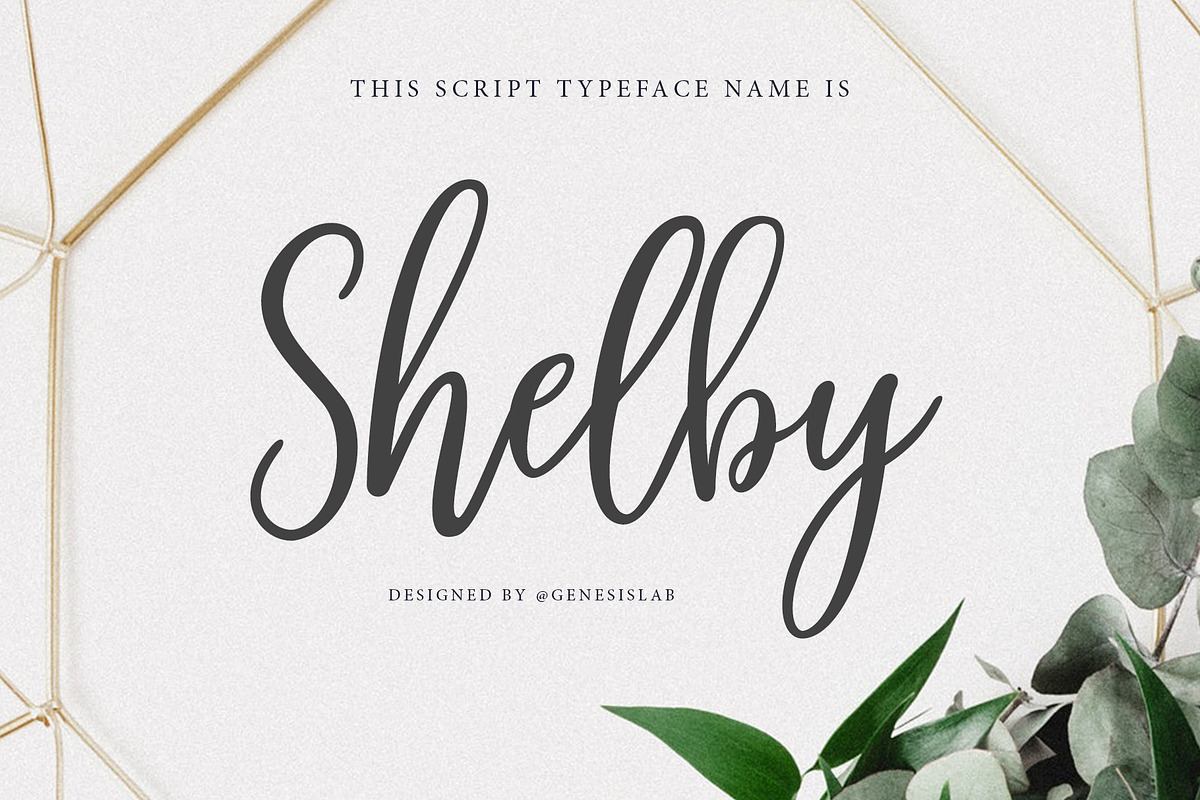
Shelby Script Font Free Download is a graceful and modern handwritten typeface that adds a personal, elegant flair to any design. With its fluid strokes, smooth curves, and balanced flow, Shelby is perfect for wedding invitations, logos, social media graphics, beauty branding, and other creative projects that call for a romantic and polished look.
This script font includes ligatures and stylistic alternates to help you create custom-feel typography with ease. Whether you’re designing for print or digital, Shelby brings warmth, charm, and sophistication to every word.